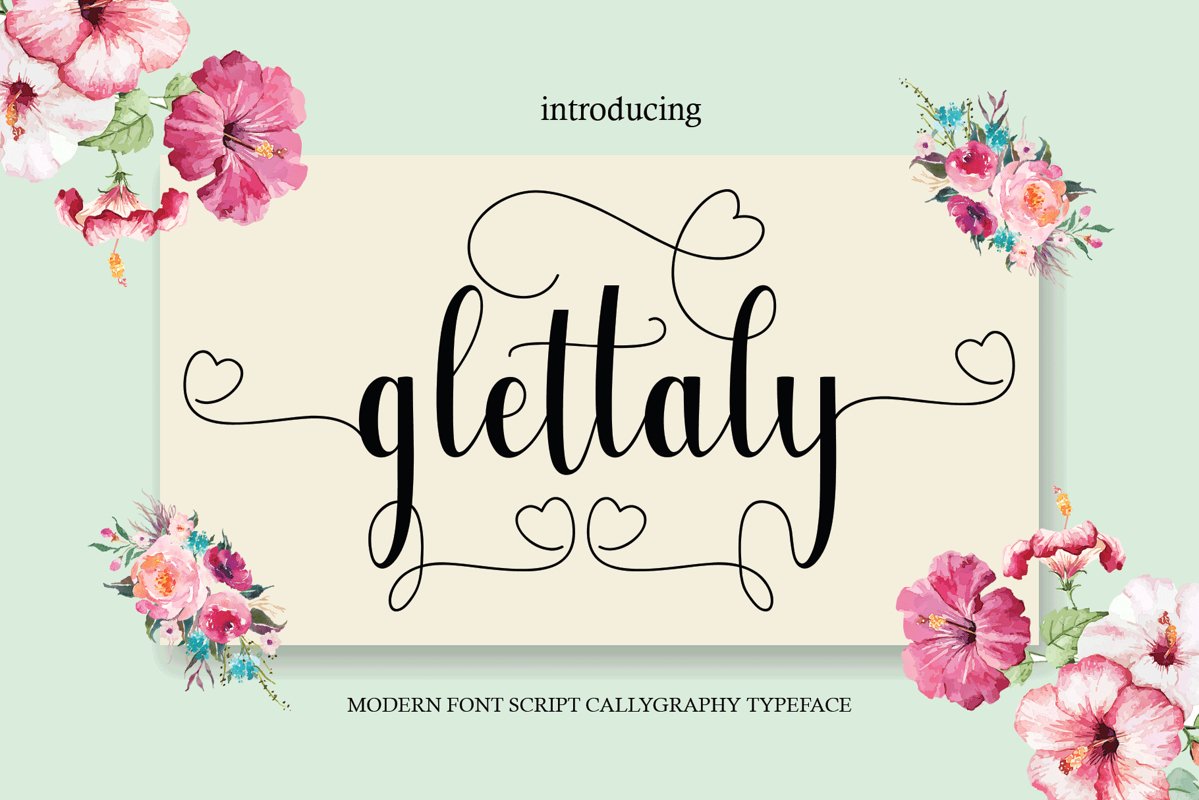
glettaly
glattaly script
glettaly Modern Calligraphy. This font was designed by handwriting, and it has a modern and unique forms of calligraphy, the writing style is very natural.
The Features of this fonts is;
Standart ligatures
Stylistic Alternates
Contextual Alternates
Stylistic sets